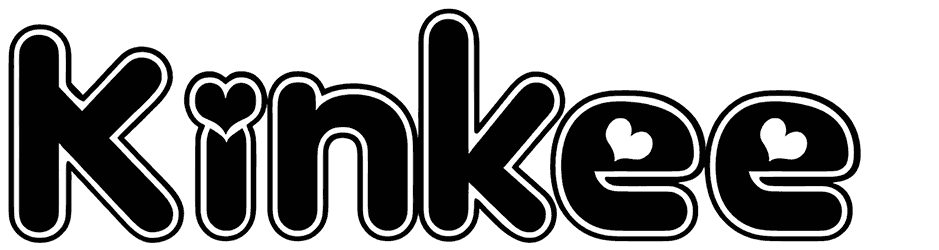
Kinkee Font
What do you think about words with an old-style and modest form but with a romantic ornament? Kinkee is a rounded font with a kinda thick look and a heart on some letters that makes it suit for love themes.
Set this heart font to display your future design for example posters, covers, illustrations, or many others. Keep it up working with Kinkee and present creative projects.